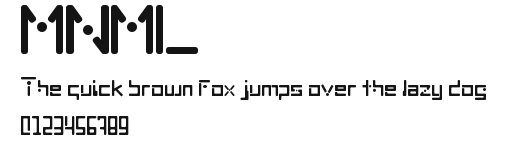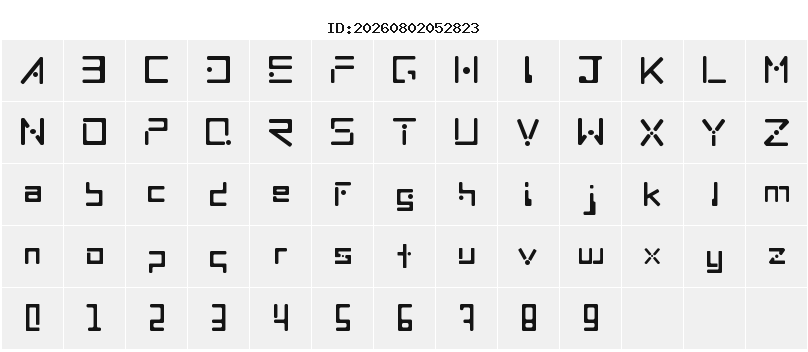
• Font Name: MNML
• Full Font Name: MNML
MNML.ttf is a modern, elegant sans-serif font designed for ultimate readability and visual harmony. Perfect for branding, headlines, web design, and print materials.